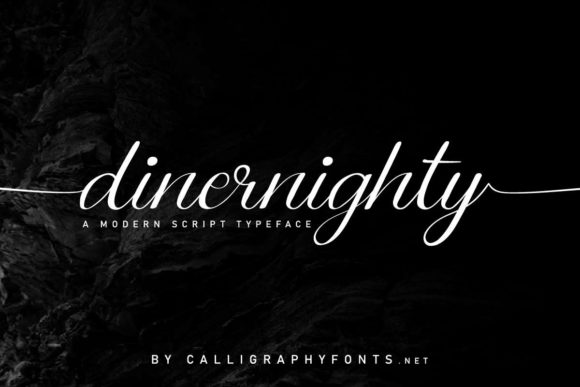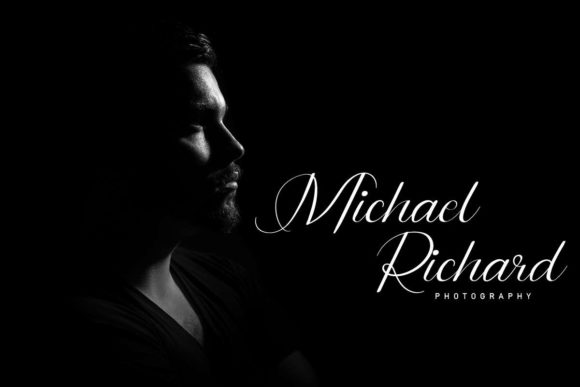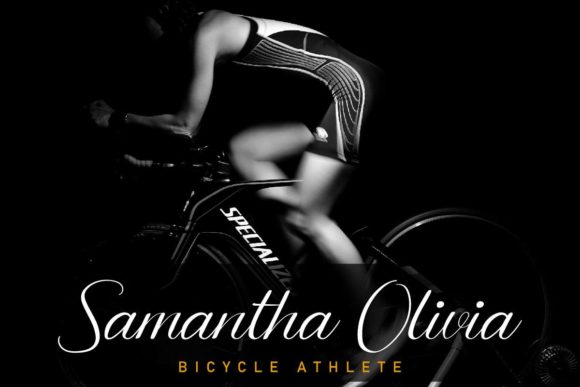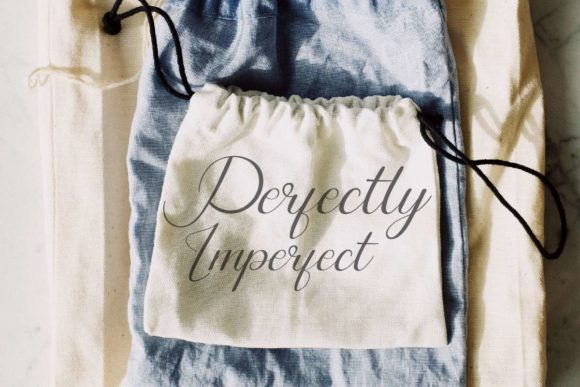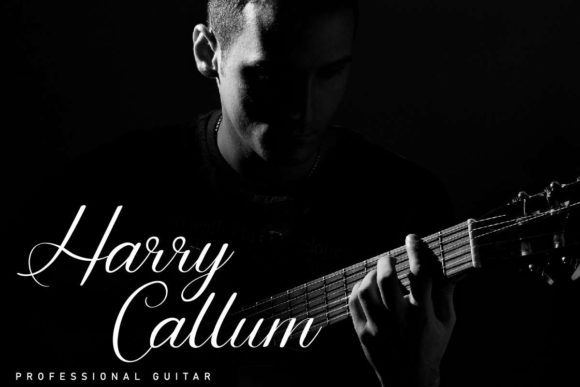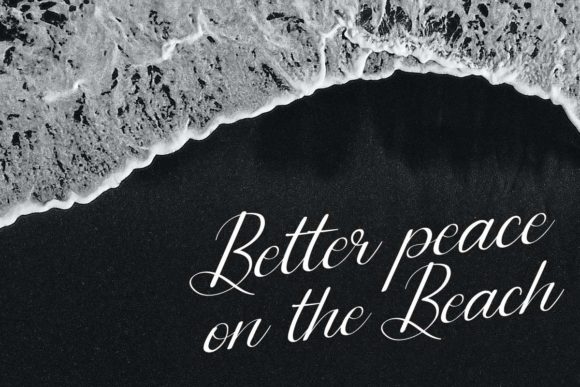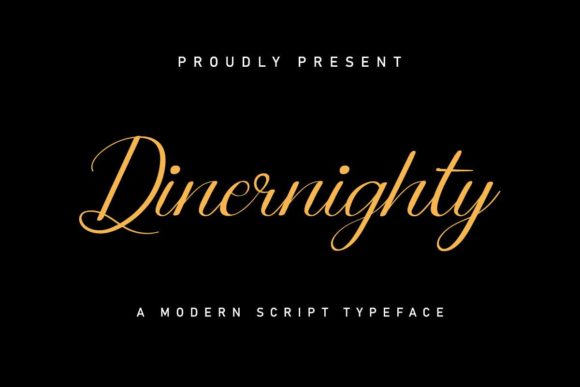
Introducing Dinernighty Font: Elevate Your Designs with Elegance
Are you on the hunt for a font that exudes sophistication, elegance, and a touch of modern flair? Look no further than Dinernighty Font, a stunning handwritten typeface that is sure to capture your heart. This exquisite font is meticulously crafted to bring a classy, calligraphic feel to your designs while maintaining a fresh and contemporary look.
The Perfect Blend of Style and Versatility
Dinernighty Font is designed to be a true favorite among designers, crafters, and anyone looking to add a touch of luxury to their projects. Its unique blend of traditional calligraphic influences and modern sensibilities makes it an incredibly versatile font, suitable for a wide range of applications. Whether you’re working on a wedding invitation, a branding project, or a packaging design, Dinernighty Font is sure to impress.
One of the standout features of Dinernighty Font is its PUA (Private Use Area) encoding. This means that you can easily access all of the glyphs and swashes, allowing you to add an extra layer of creativity and sophistication to your designs. With PUA encoding, you can effortlessly navigate the font’s extensive character set, including ligatures, alternates, and swashes, to create truly unique and eye-catching designs.
What Makes Dinernighty Font So Special?
• Exquisite Handwritten Design: Dinernighty Font boasts a beautiful, handwritten design that is both elegant and refined.
• Classy Calligraphic Influences: The font’s calligraphic roots give it a sophisticated, high-end feel that’s perfect for luxury brands and designs.
• Contemporary and Fresh: Despite its classic influences, Dinernighty Font feels modern and fresh, making it suitable for a wide range of design applications.
• PUA Encoded: With PUA encoding, you can easily access all of the font’s glyphs and swashes, giving you unparalleled creative control.
How to Use Dinernighty Font in Your Designs
Dinernighty Font is incredibly easy to use, even for those who are new to font design. Here are a few tips to get you started:
• Pair it with Other Fonts: Combine Dinernighty Font with other fonts to create a unique and visually appealing design.
• Experiment with Swashes: Take advantage of the font’s extensive swash collection to add a touch of elegance and sophistication to your designs.
• Use it for Headings and Titles: Dinernighty Font is perfect for headings and titles, where its elegant design can really shine.
Who Can Benefit from Dinernighty Font?
Dinernighty Font is an excellent choice for a wide range of designers and crafters, including:
• Graphic Designers: Add a touch of elegance and sophistication to your branding, packaging, and advertising designs.
• Wedding Designers: Create beautiful wedding invitations, stationery, and decorations with Dinernighty Font.
• Crafters: Use Dinernighty Font to add a personal touch to your handmade crafts, such as journals, cards, and gift tags.
In conclusion, Dinernighty Font is an exceptional handwritten font that is sure to become a favorite among designers and crafters. Its unique blend of classy calligraphic influences and modern sensibilities makes it an incredibly versatile font, suitable for a wide range of design applications. With its PUA encoding and extensive character set, Dinernighty Font offers unparalleled creative control and flexibility. Whether you’re looking to add a touch of elegance to your designs or simply want to create something truly special, Dinernighty Font is an excellent choice.